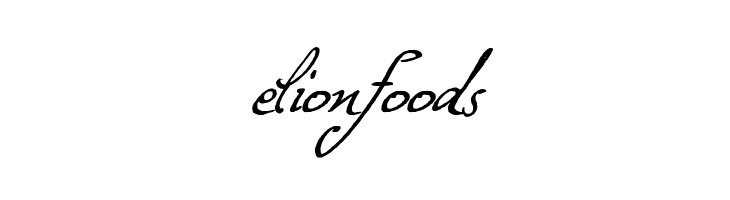
An ornate blackletter font with intricate detailing and a classic, formal style.
A bold, decorative font with spiky, explosive embellishments.
An elegant script font with intricate swashes and high contrast strokes.
An ornate, whimsical font with intricate swirls and flourishes.